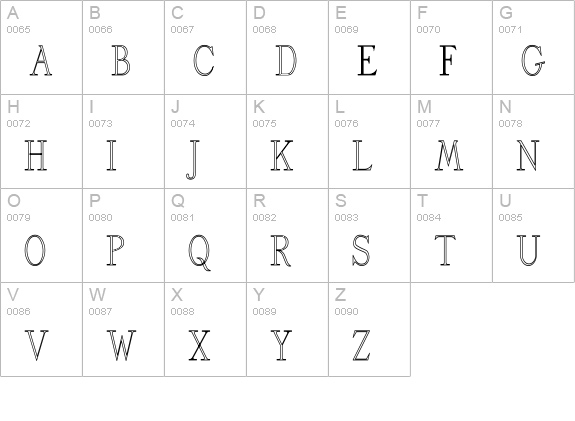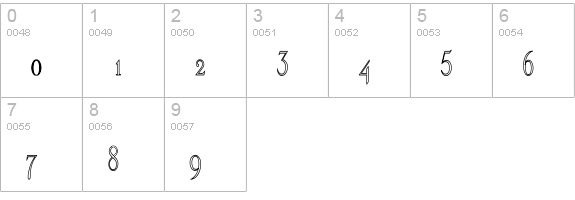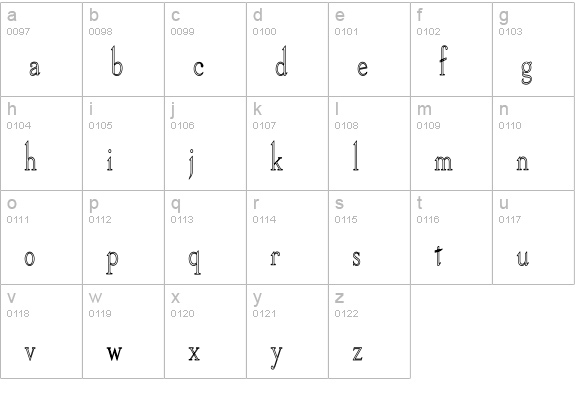
DickensHC Font Details
DickensHC font is a classic and elegant typeface inspired by the timeless works of Charles Dickens. Its intricate serifs and vintage charm evoke a sense of nostalgia, perfect for adding a touch of old-world sophistication to any design project. This versatile font is ideal for creating elegant invitations, vintage posters, or adding a literary flair to your branding. The DickensHC font is freely available to download at FontsMarket.com, making it accessible to designers and creatives looking to add a touch of vintage elegance to their work. With its unique character and timeless appeal, this font is sure to bring a touch of Victorian charm to your designs.